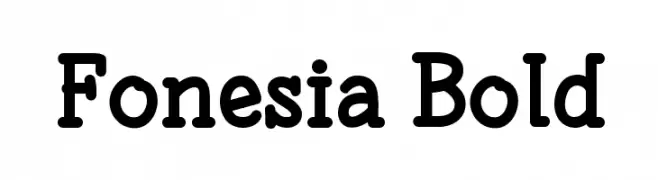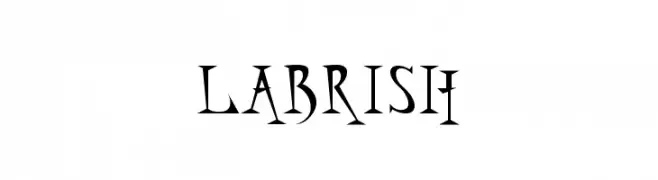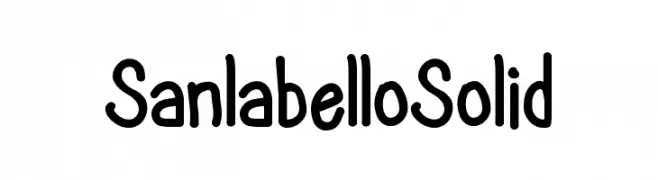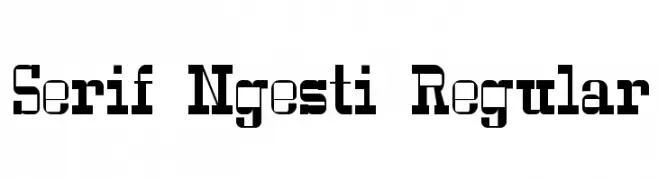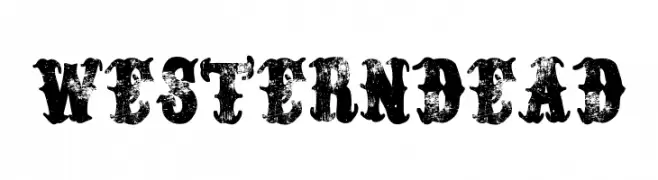
A playful, rounded font with smooth curves and a friendly appearance.
A playful, handwritten font with uneven strokes and a casual style.
A bold slab serif font with a western-inspired, geometric design.
A bold, gothic-inspired font with sharp, angular serifs and dramatic flair.
A rugged, distressed slab serif font with a bold, vintage Western aesthetic.